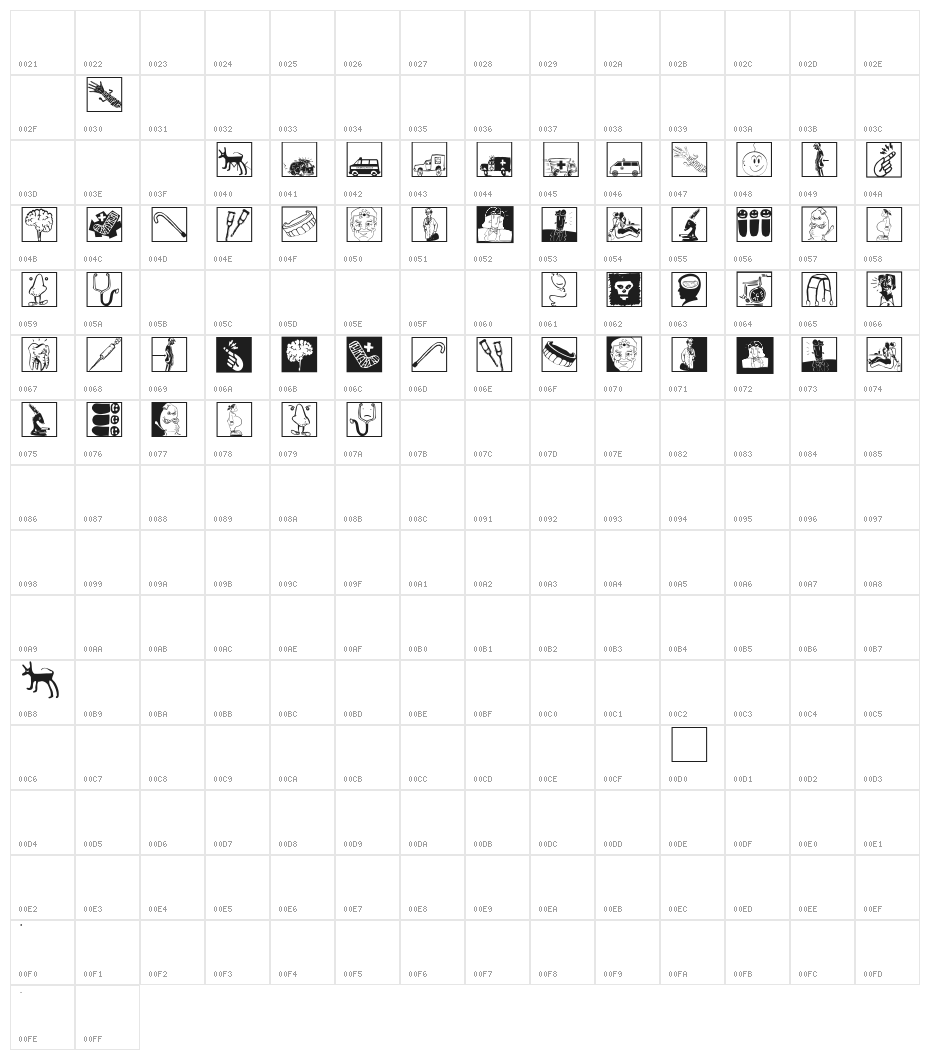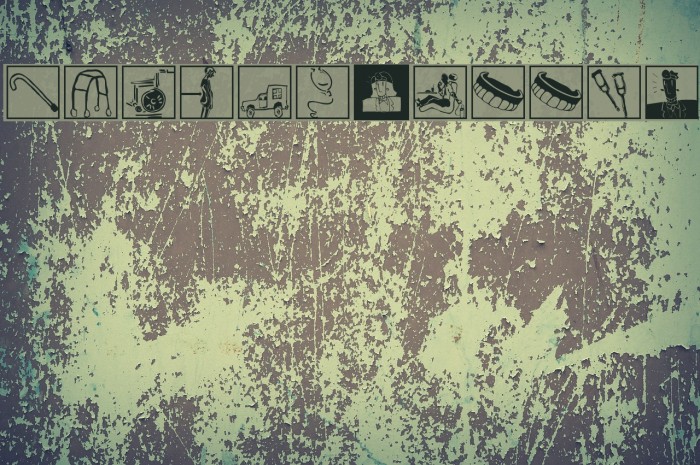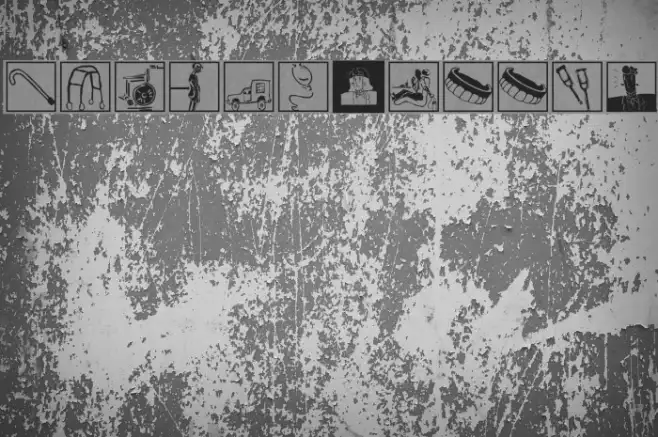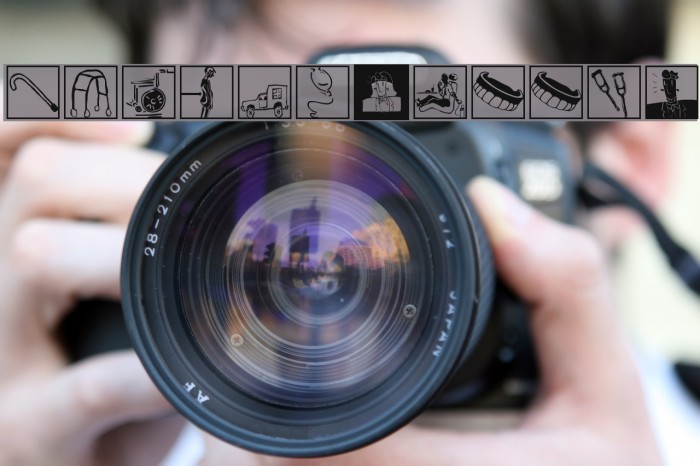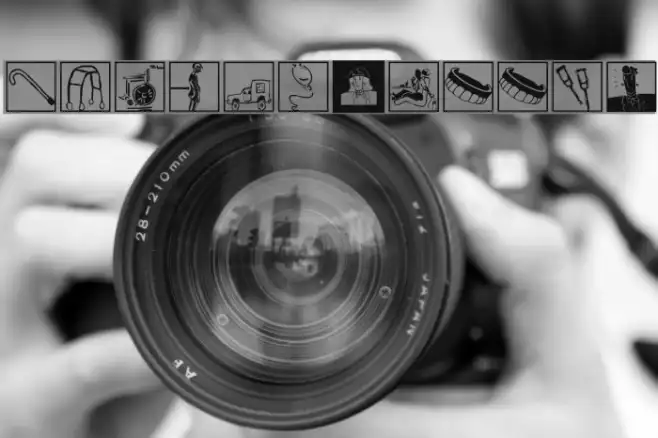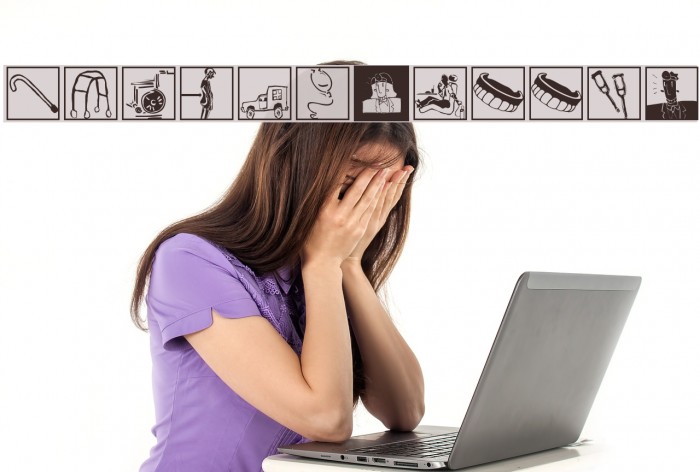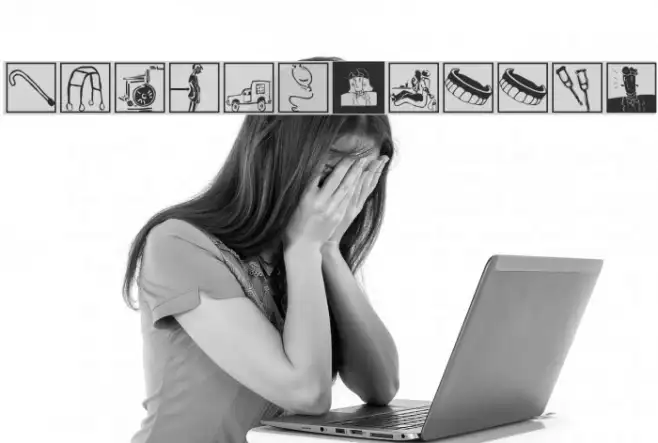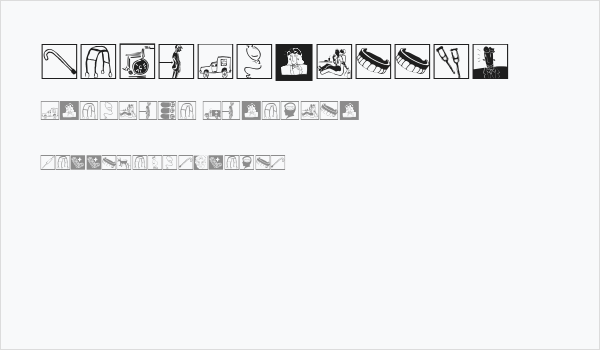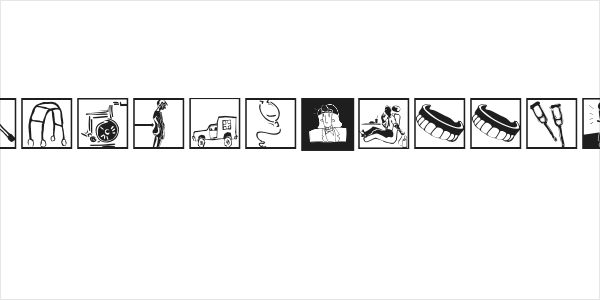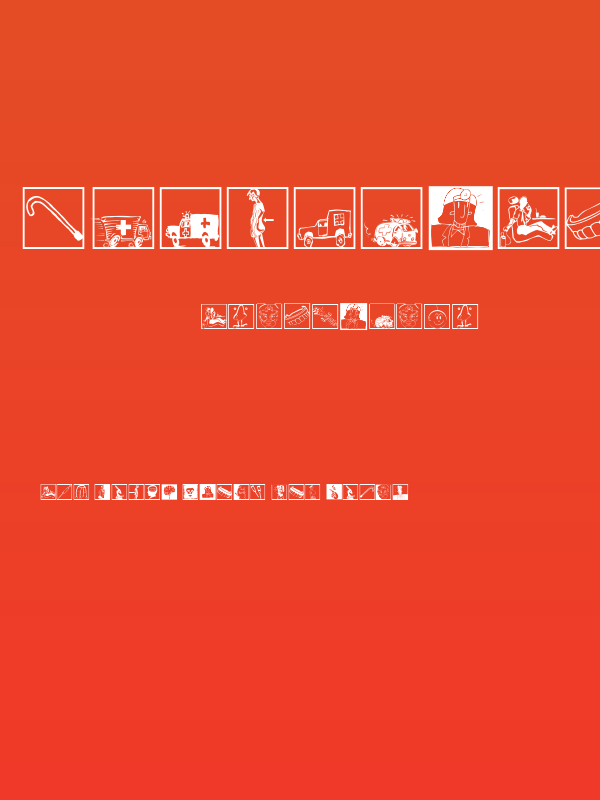
MediCartoons Font
MediCartoons Description
This is a playful and illustrative set of medical-themed icons and symbols. Each character is represented by a unique cartoon-style image, depicting various medical scenarios and objects. The style is bold and clear, making it suitable for educational or entertainment purposes. The icons include ambulances, medical tools, and humorous depictions of medical conditions, all rendered in a consistent black and white color scheme. The overall design is engaging and approachable, perfect for projects that aim to make medical topics more accessible and fun.
| Use Case | Logos, Educational materials, Marketing |
| Proposed Projects | Ideal for educational materials, medical-themed games, or health-related marketing campaigns. |